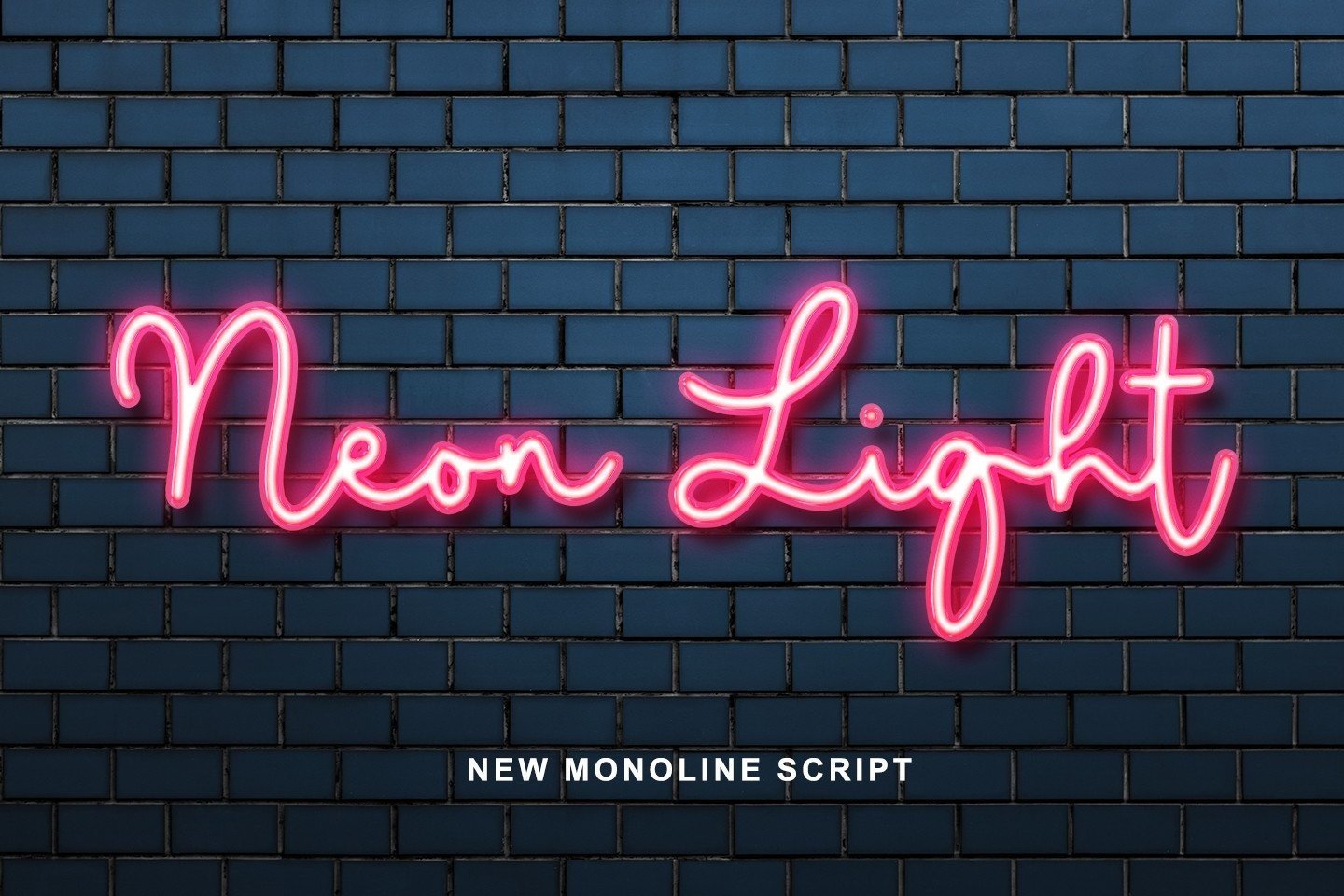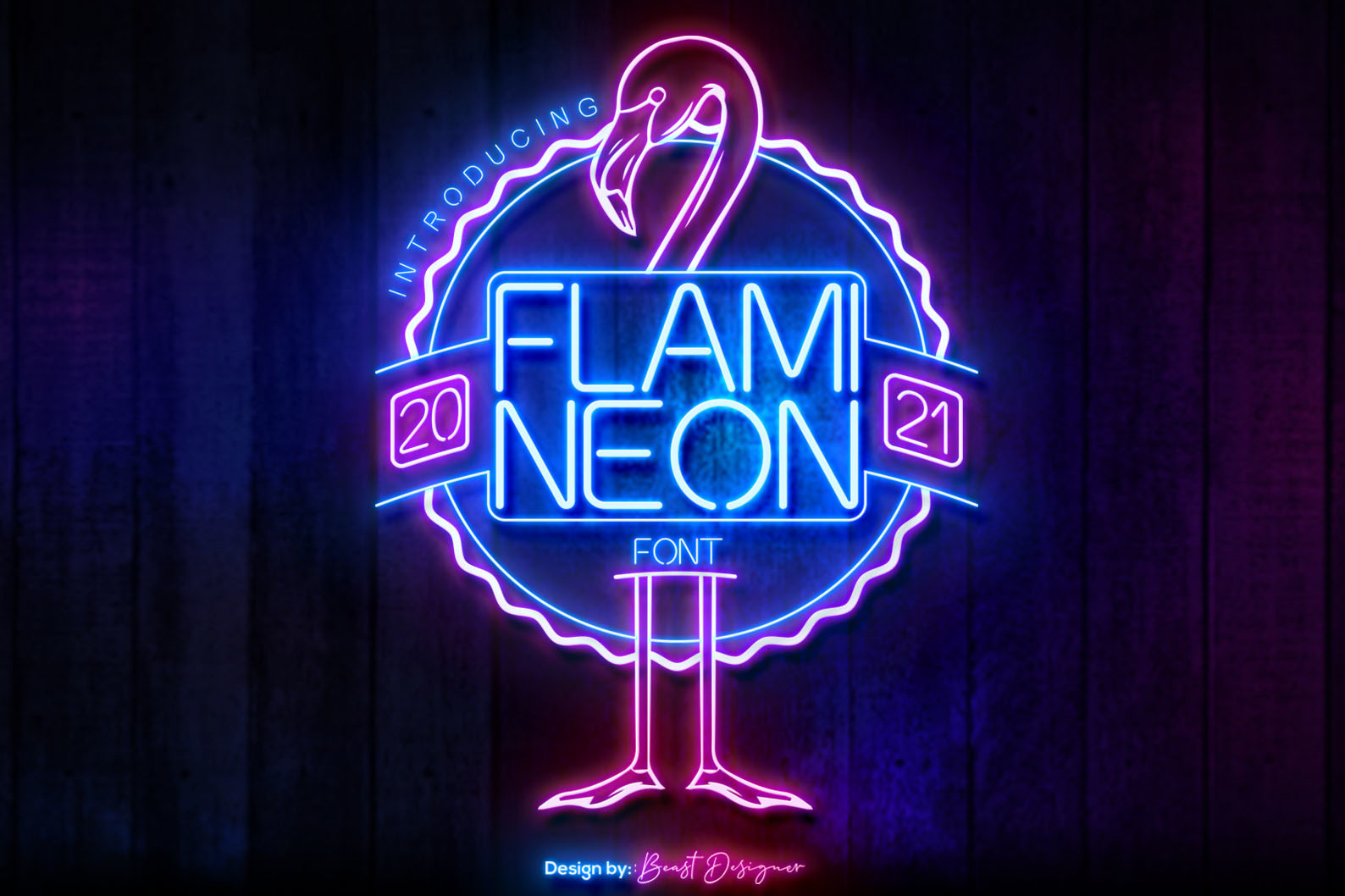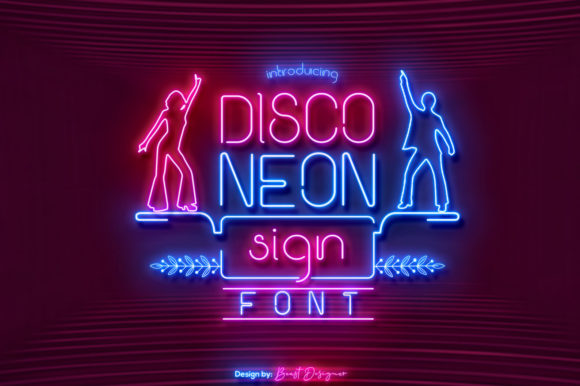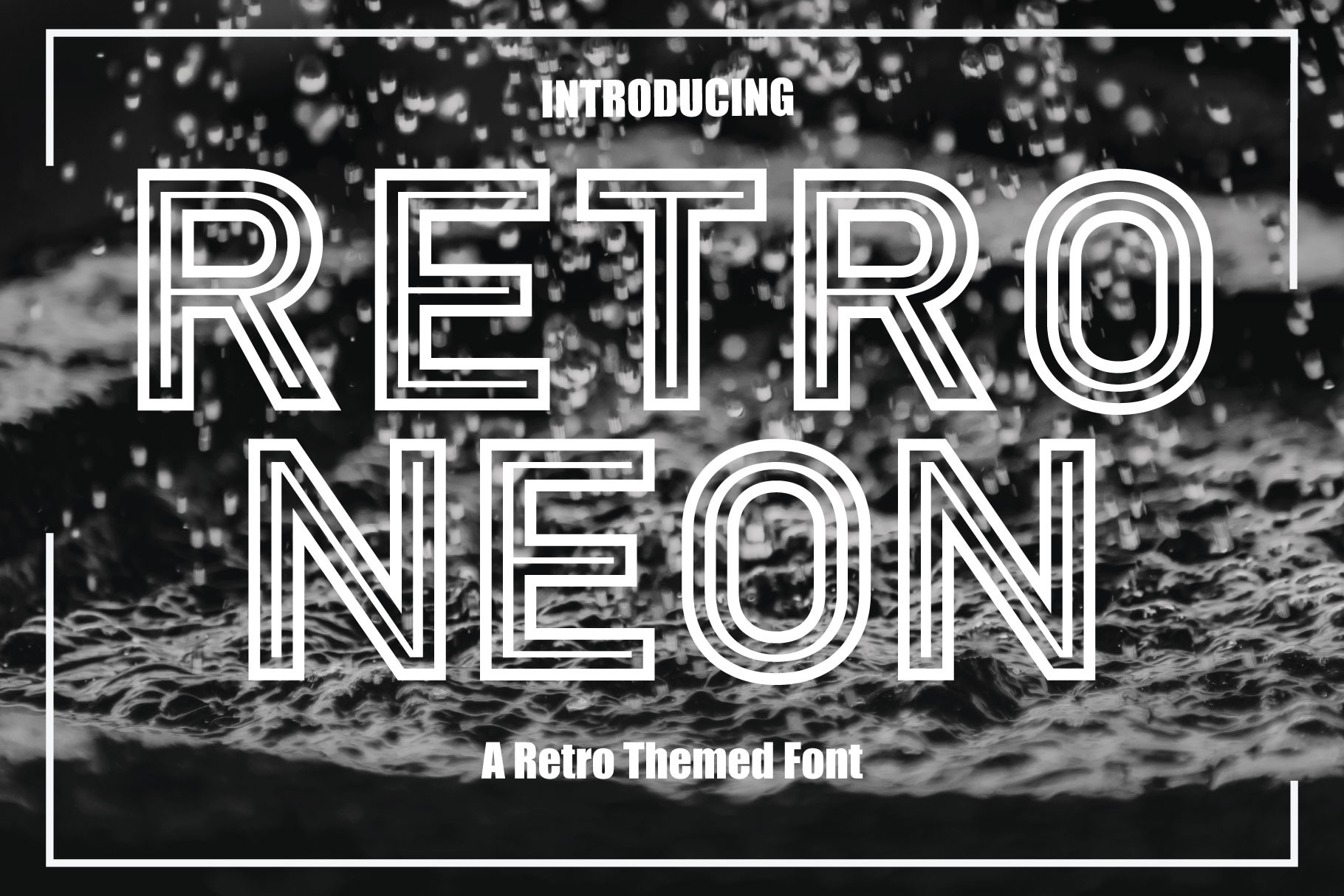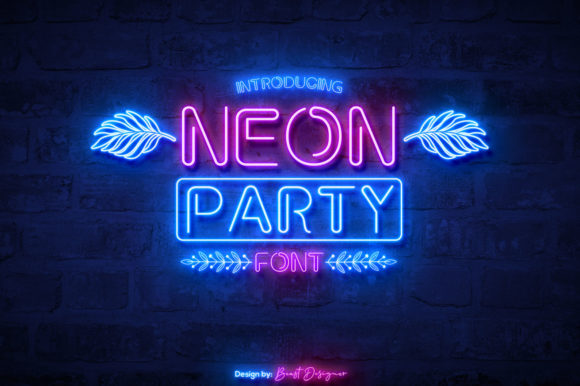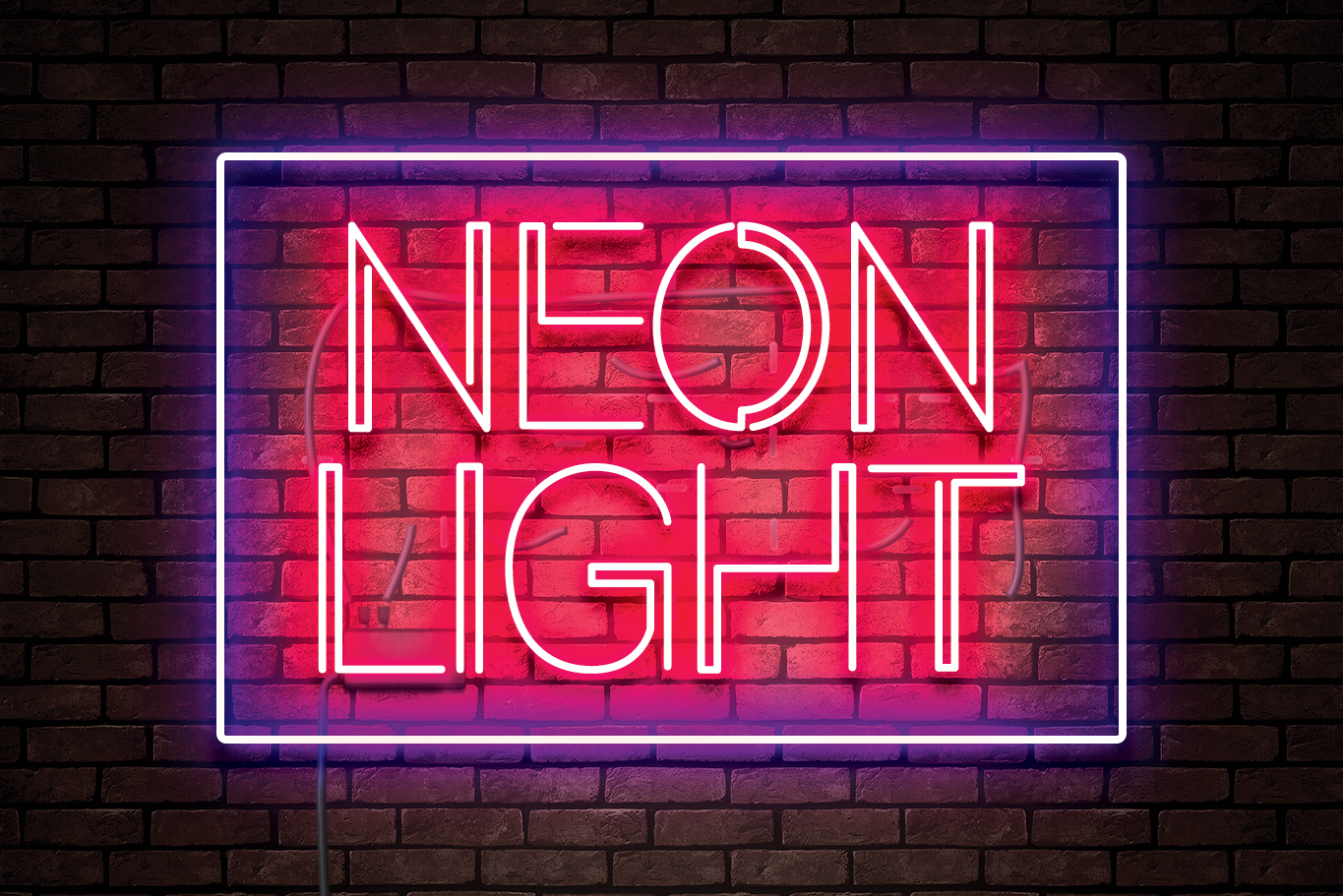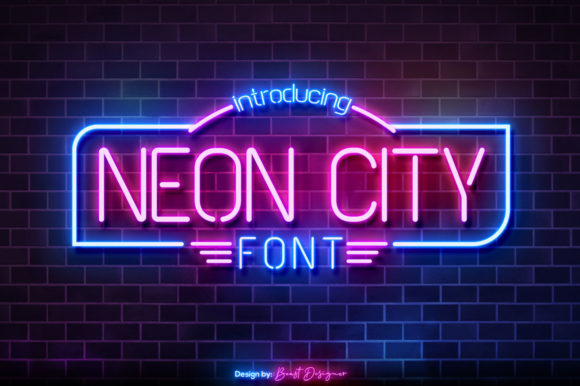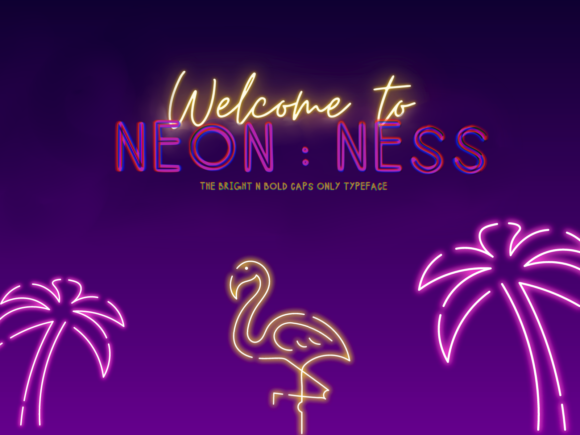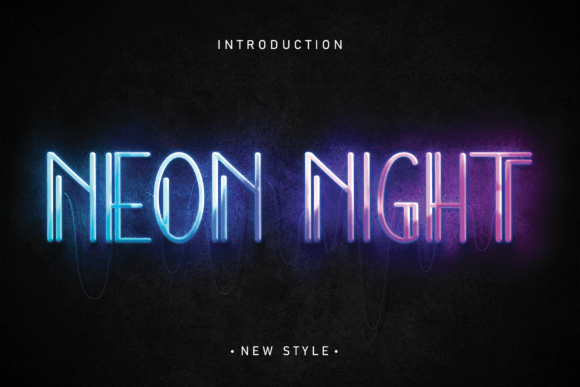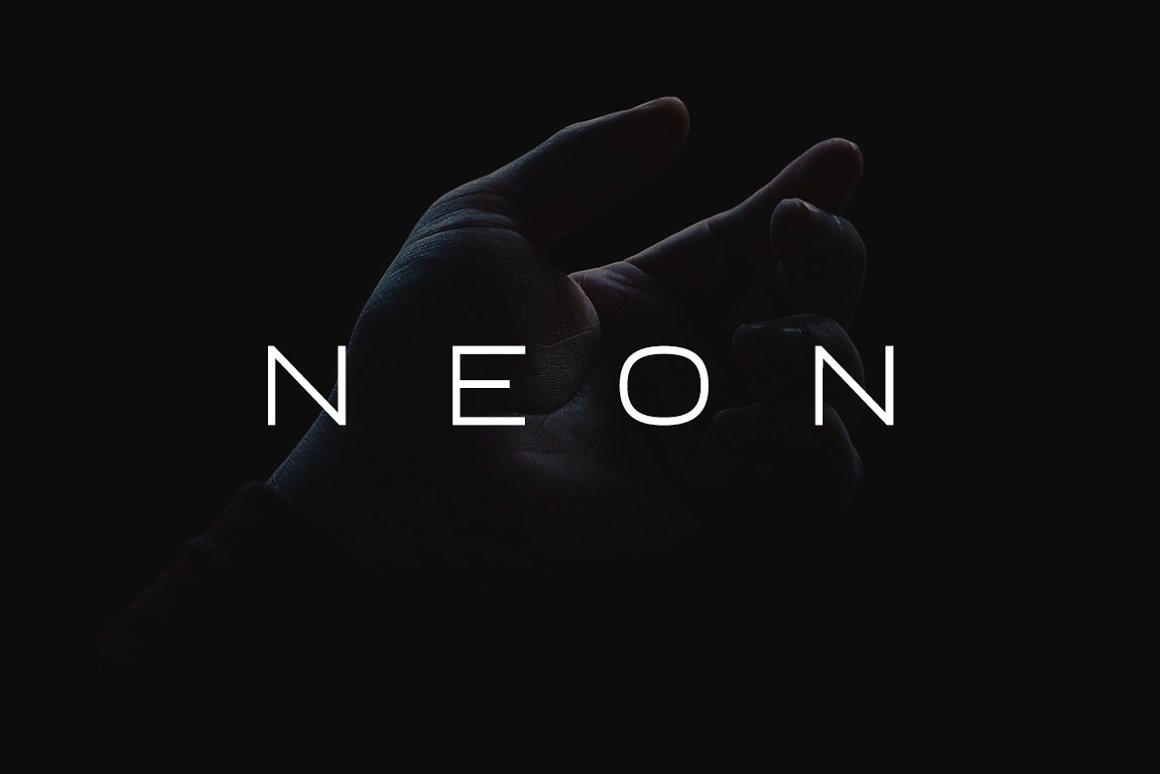
Discover 16 professional neon fonts ideal for creative projects on Canva, including free and premium options from sources like Creative Fabrica. Each font offers bold, glowing effects perfect for eye-catching branding, social media, and digital designs—learn how to upload and use them seamlessly in Canva.
Why Neon Fonts Matter for Canva Designers
Neon fonts have surged in popularity for their vibrant, electrifying style, making them perfect for anyone looking to make a bold impact with their creative projects. Whether you’re a designer, blogger, Etsy seller, or small business owner, incorporating neon fonts into your Canva designs can instantly grab attention and infuse your work with modern, urban appeal. These glowing-typefaces are especially effective for branding, digital marketing, event flyers, and social media posts—where standing out is everything. With an array of free and premium choices available, you can easily find a professional neon font to match your project’s vibe, be it retro, futuristic, playful, or ultra-modern. Plus, uploading custom fonts to Canva takes just a few clicks, making the process seamless and beginner-friendly. If you’re eager to energize your next design with dazzling typography, you’ll want to bookmark this 27 Most Popular Playful Fonts for Canva Projects guide and explore the curated list below, handpicked for quality and Canva compatibility.
Top 5 Neon Fonts for Canva: Quick Comparison
| Neon Light Font by Abodaniel | Bold Script Neon | Logos, social graphics, flyers | Premium (Creative Fabrica) |
| Flami Neon Font by Beast Designer | Handwritten Neon | Invitations, branding, ads | Premium (Creative Fabrica) |
| Disco Neon Sign Font by Beast Designer | Retro Neon Display | Party flyers, music posters | Premium (Creative Fabrica) |
| Retro Neon Font by KtwoP | Retro Neon Sans | Tech websites, events | Premium (Creative Fabrica) |
| Neon Party Font by Beast Designer | Fun Casual Neon | Menus, social posts, invites | Premium (Creative Fabrica) |
Neon Font Reviews: 16 Professional Choices for Canva
Neon Light Font by Abodaniel · Creative Fabrica
Neon Light by Abodaniel captures the quintessential neon tube look, featuring a striking glow and rounded script forms. This font immediately adds a retro-futuristic vibe, ideal for branding, party invites, or urban event flyers. Its smooth curves make text appear illuminated, perfect for digital use or night-themed campaigns. Try it on Instagram posters or digital banners for a true show-stopper effect.
Flami Neon Font by Beast Designer · Creative Fabrica
Flami Neon features a handwritten, playful style that feels approachable yet unmistakably bold. Its neon effect with natural curves makes it a great choice for branding, advertising, or social media content. Use it for fashion flyers, event invitations, or modern restaurant menus where trendy visuals are a must. This font thrives in projects aiming for a youthful, energetic impression.
Disco Neon Sign Font by Beast Designer · Creative Fabrica
Disco Neon Sign Font screams 80s nightclub energy, delivering a striking, outlined neon aesthetic that demands attention. Its retro display style is perfect for party announcements, music event posters, or themed bar promotions. Incorporate this font in any digital design that calls for a fun, nostalgic, and electric atmosphere—great for DJs, entertainment venues, or creative bloggers.
Retro Neon Font by KtwoP · Creative Fabrica
Retro Neon Font by KtwoP brings a classic 80s neon sign effect with a strong sans-serif structure. It’s an ideal pick for tech websites, themed events, or editorial layouts needing a touch of colorful nostalgia. The simplicity combined with a brilliant glow works brilliantly for headline text, gaming graphics, or movie poster designs in Canva.
Neon Party Font by Beast Designer · Creative Fabrica
Neon Party is a fun, lively font suited to casual party invites, nightclub advertising, or bold restaurant menus. Its easy-to-read yet visually dynamic glow ensures your text pops, even in digital spaces with lots of visual competition. Use Neon Party for announcements, banners, or social posts where you want to communicate excitement and fun.
Neon Light Font by erik studio · Creative Fabrica
This version of Neon Light by erik studio stands out for its ultra-bright, clean lines and pronounced neon illumination. Its versatile look works for both retro and contemporary designs, including tech marketing materials or striking webinar banners. The font’s tube-like effect makes it perfect for a variety of modern Canva designs, like Twitch overlays and nightlife promotions.
Neon City Font by Beast Designer · Creative Fabrica
Neon City gives your text a true metropolitan glow, perfect for city event promotions, tech startups, or hipster café branding. With outlined, luminous characters, it’s well suited for dark mode graphics or modern website hero sections. Neon City is the go-to pick for designers wanting a trendy, urban vibe that works beautifully in Canva’s design interface.